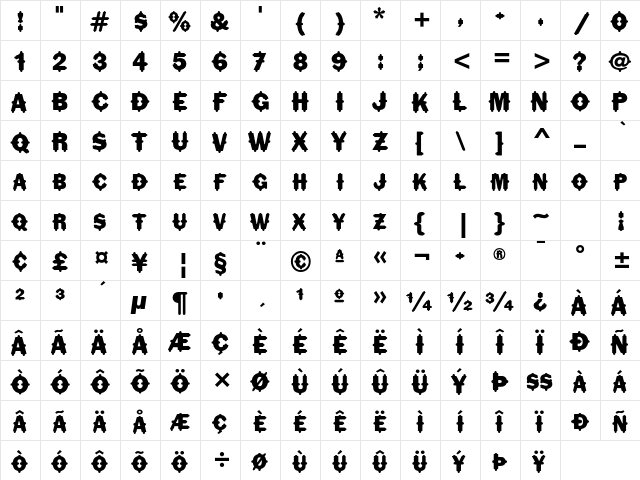
Florinda ITC Std Regular
| Designer | Luis Siquot |
Design Context for Florinda ITC Std Typeface
Florinda ITC Std is a composed and adaptable typeface that performs quietly and consistently across a wide range of design contexts.